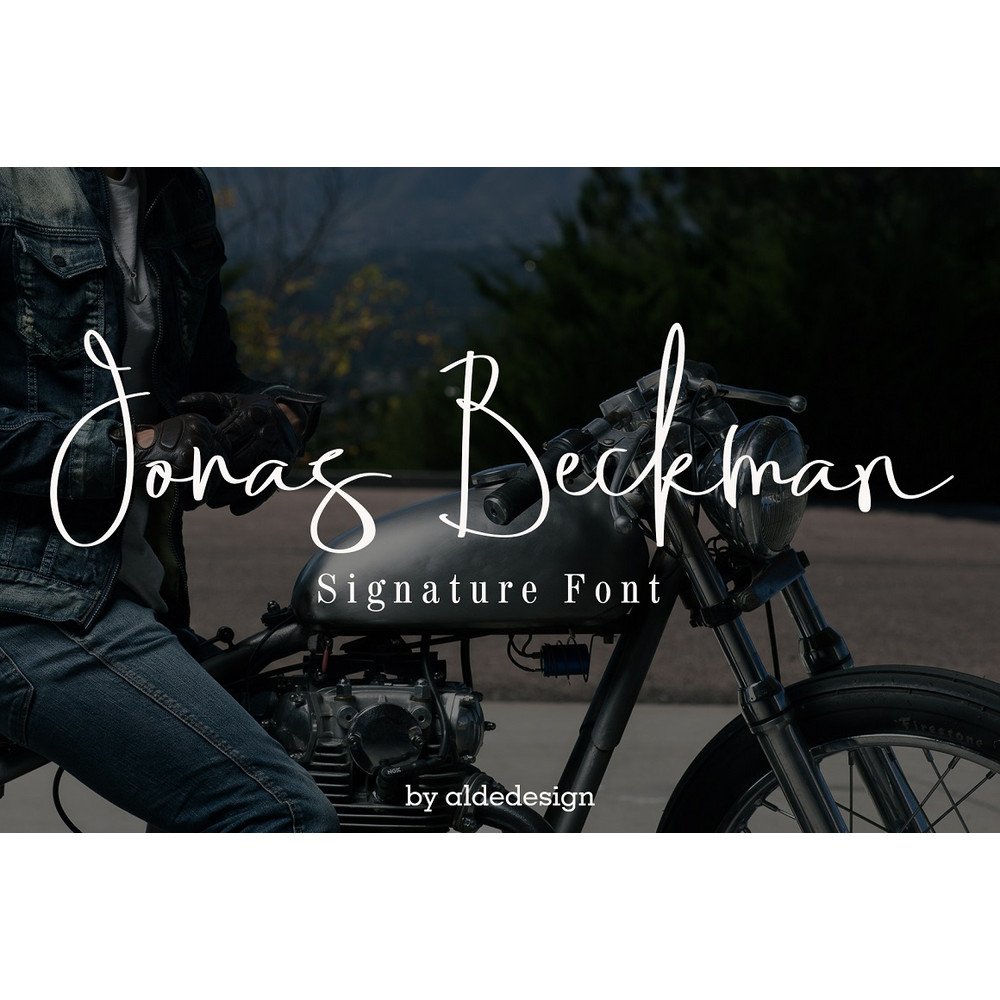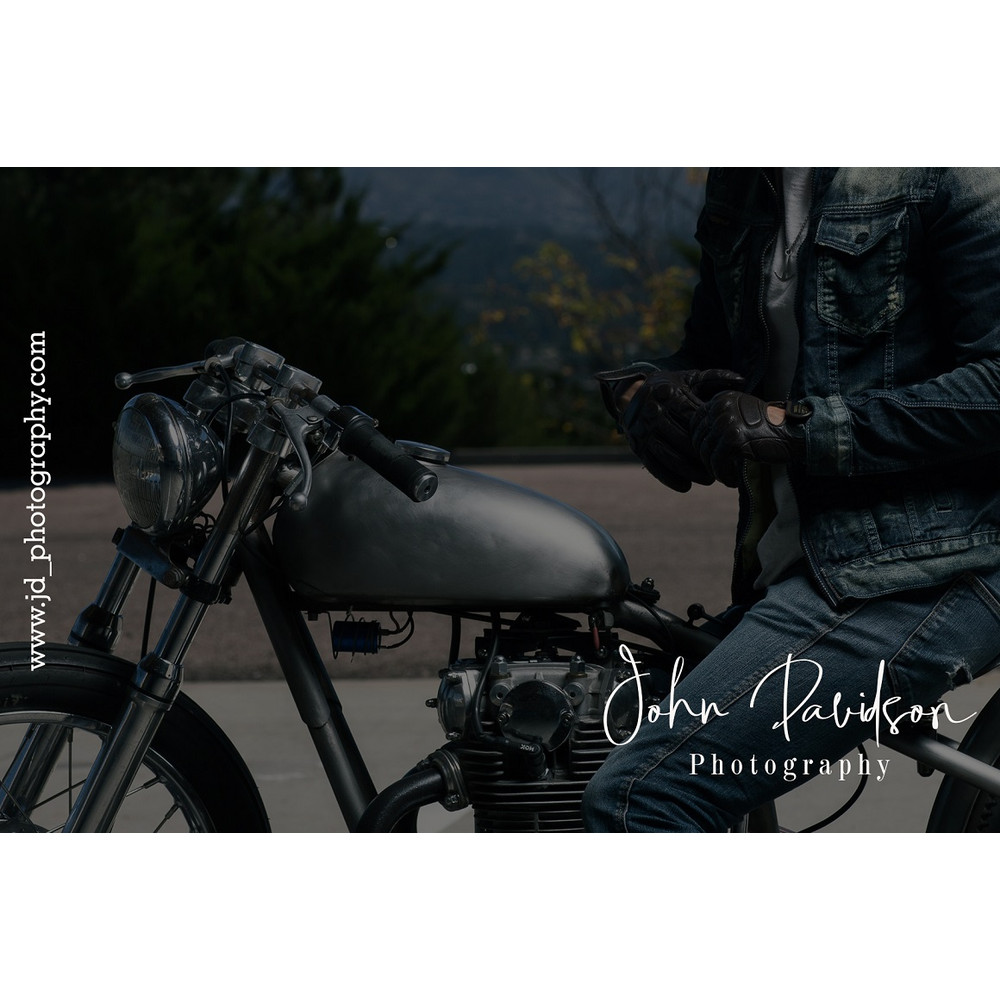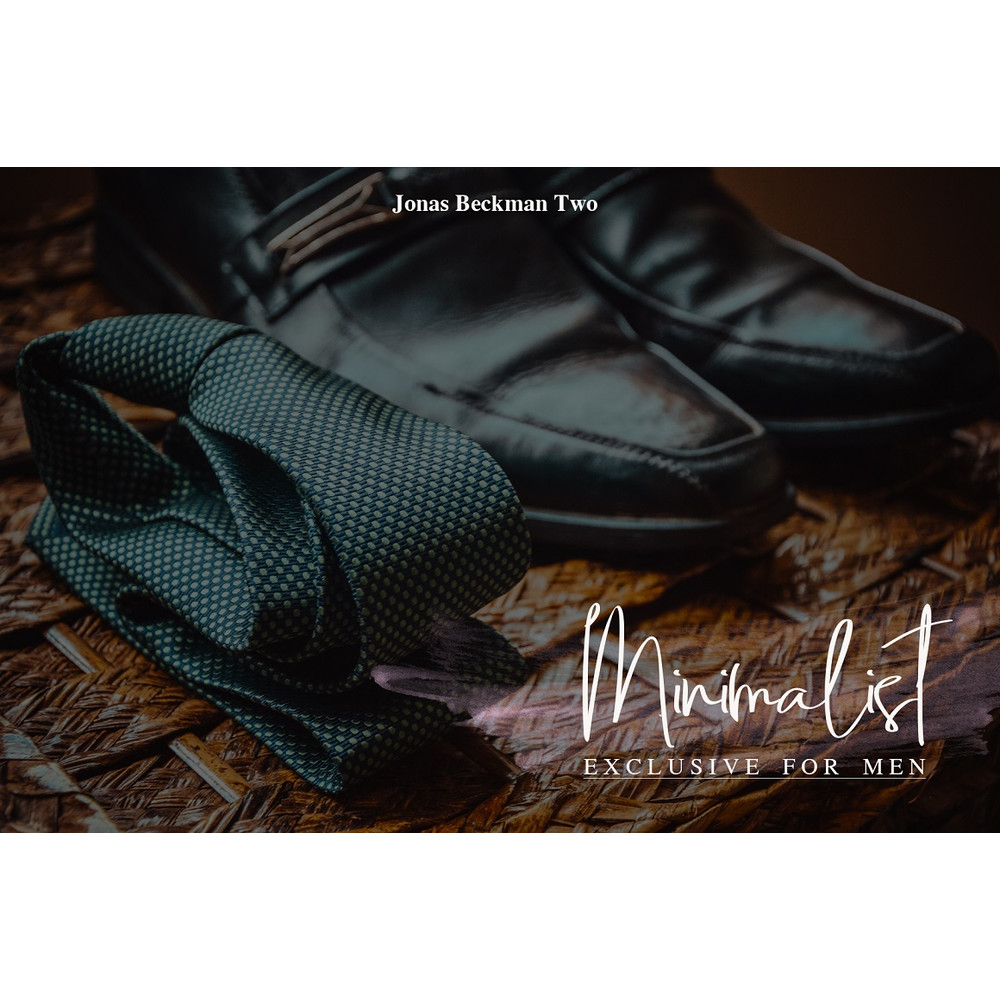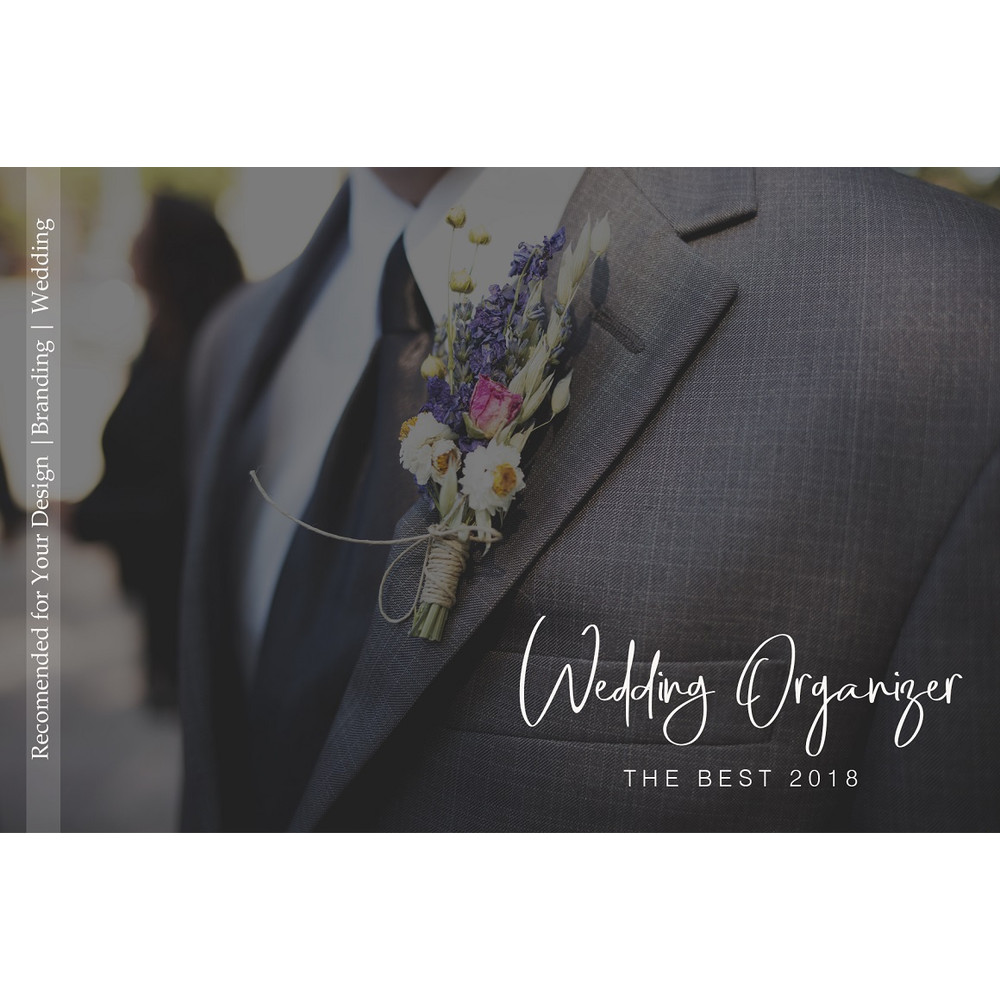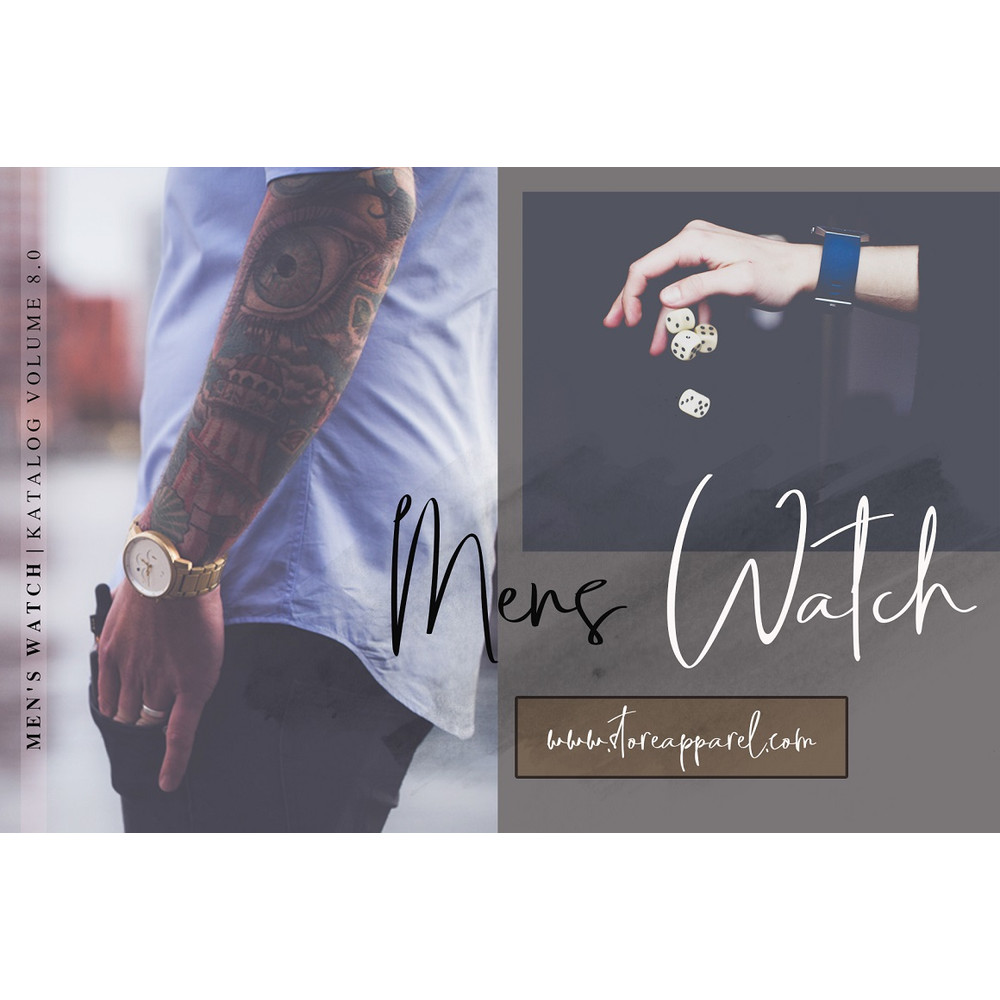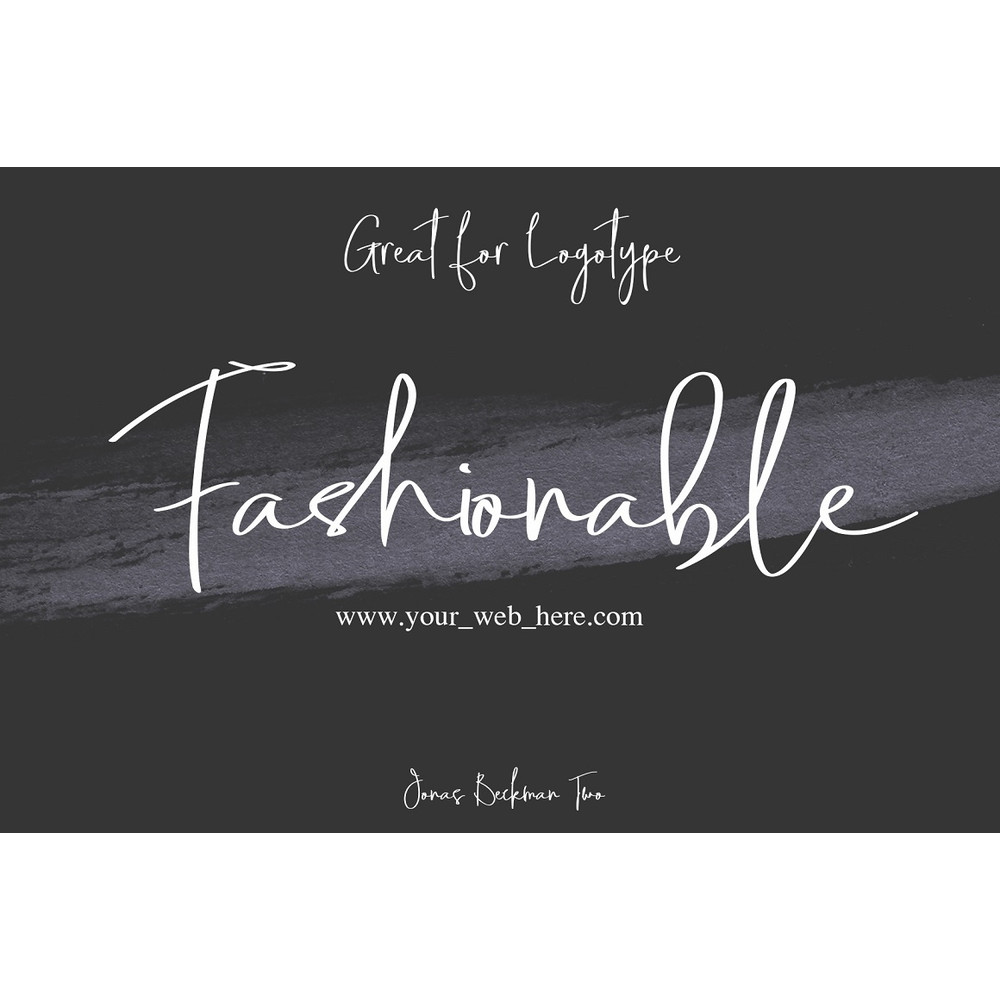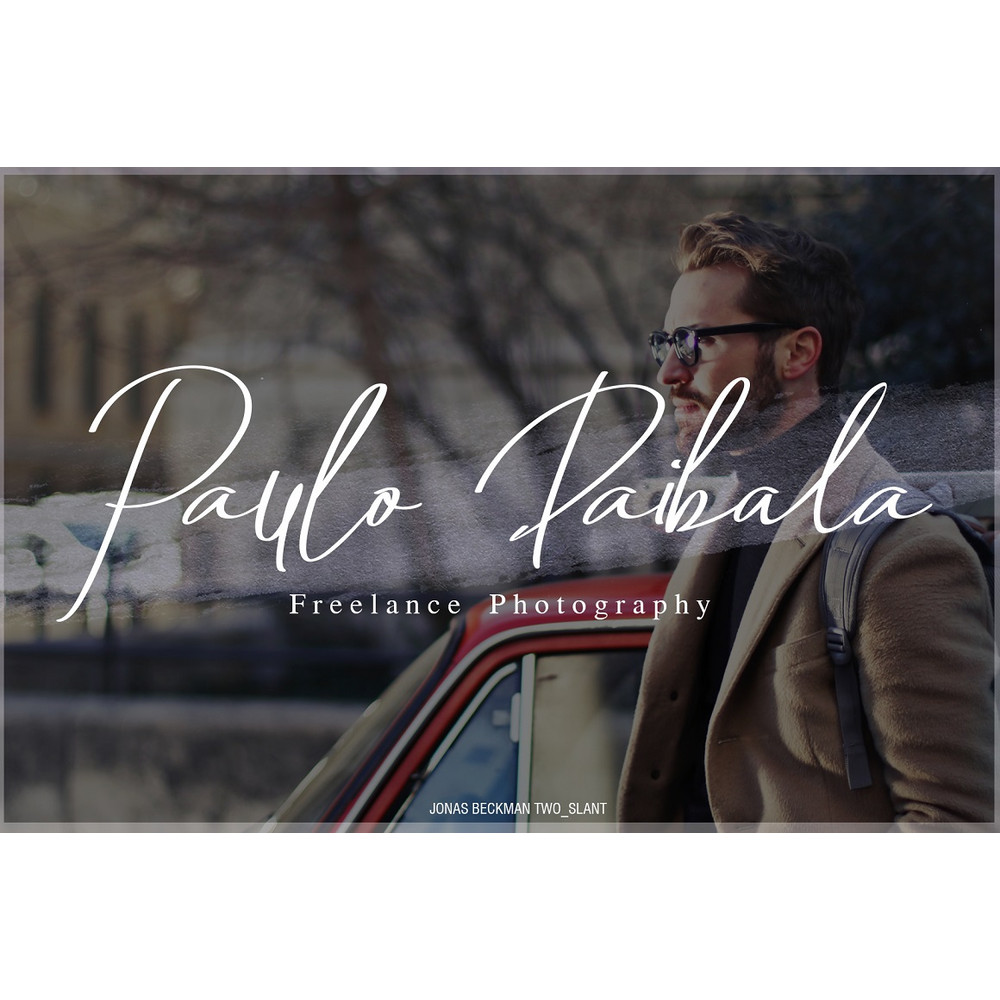
Jonas Beckman // Two Signature Fonts Trending Fonts - Digital Font
Jonas Beckman is a font with simple and classy taste, comes with 2 Elegant Variations, opentype features such as ligatures, and free Slant Version . We keep this font looks classy, readable, elegant, stylish, catchy and absolutly easy to use.
Jonas Beckman Font is the great choice for watermark on photography, signature or signature logo design, album cover, business card, quotes, and many other design project.
FREE SLANT VERSION